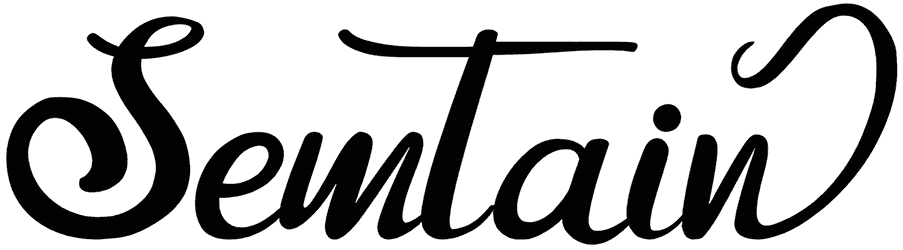
Semtain Font
Semtain is an artistic script font that is mostly known for its high legibility and the potential of sharing a sense of delicacy, jauntiness, reliability, and honesty. It comes with angular letters and well-rounded edges…
Semtain is an artistic script font that is mostly known for its high legibility and the potential of sharing a sense of delicacy, jauntiness, reliability, and honesty.
It comes with angular letters and well-rounded edges, thus it can be perfectly matched with a huge set of creative ideas, including social media posts, greeting cards, wedding invitations, diplomas, or menus. You can save a lot of time and energy finding a suitable font for your projects by visiting the RB collection.